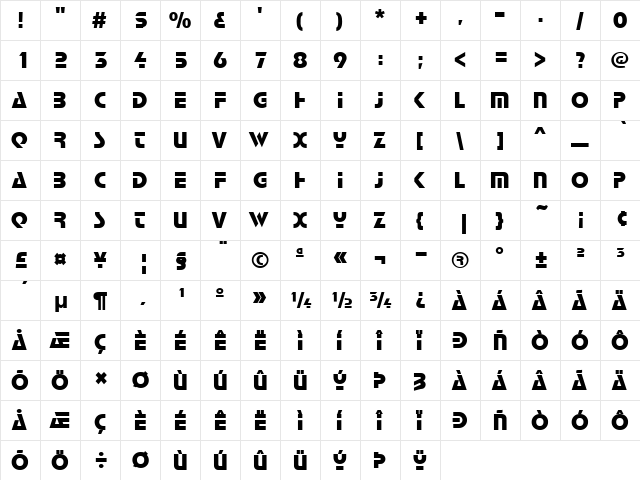
PT Technobop Normal
Design Context for PT Technobop Typeface
PT Technobop has a distinctly futuristic character, with geometric precision and clean angles that feel at home in technology, gaming, and sci-fi contexts.
Pro Tip: Use PT Technobop in combination with a neutral sans for body text. Let it define the brand voice in headlines while keeping reading comfortable elsewhere.